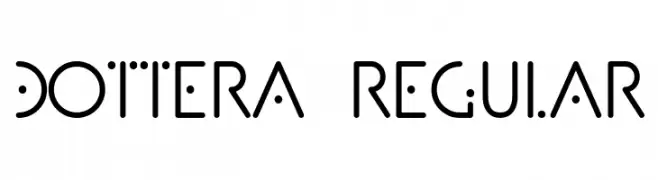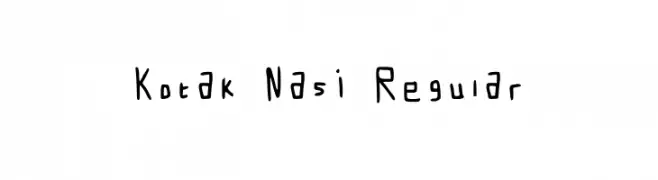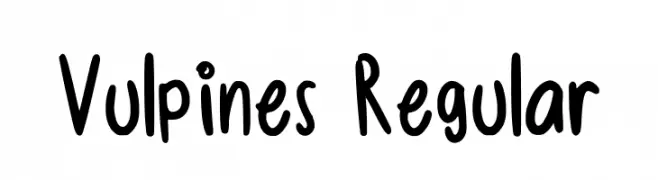
A playful serif font with a personal touch and regular weight.
A modern, geometric font with circular accents and a minimalist aesthetic.
A playful, handwritten font with rounded, irregular letterforms.
A dramatic and expressive serif font with sharp, angular features.
A playful handwritten font with rounded, irregular characters.
A playful, hand-drawn font with tall, narrow letterforms and slight irregularities.
A geometric, modern font with angular, boxy letterforms and consistent stroke width.
A playful, handwritten font with thin, irregular strokes and a casual style.
A whimsical, hand-drawn font with elongated, irregular strokes.
A whimsical, hand-drawn font with irregular strokes and a playful style.